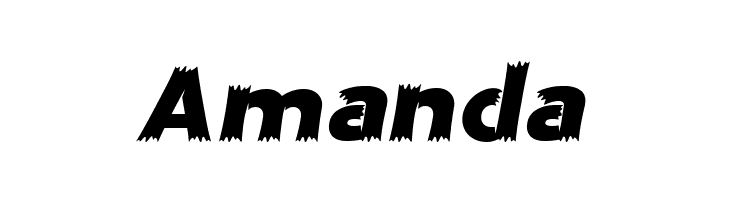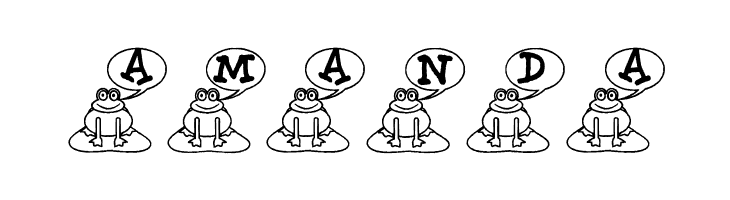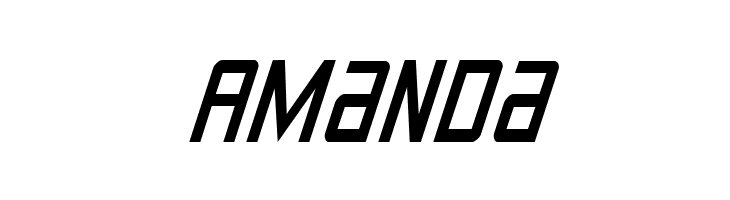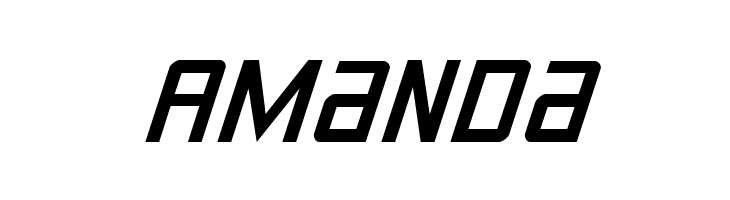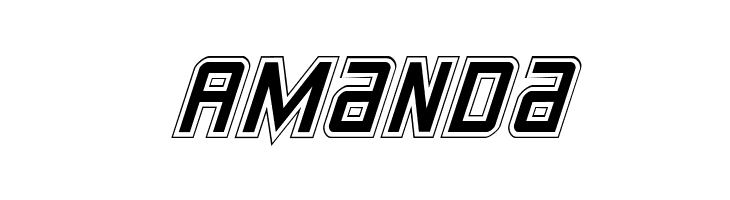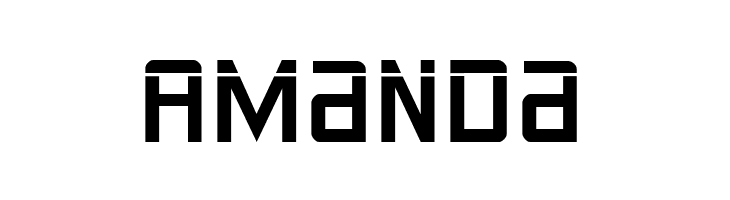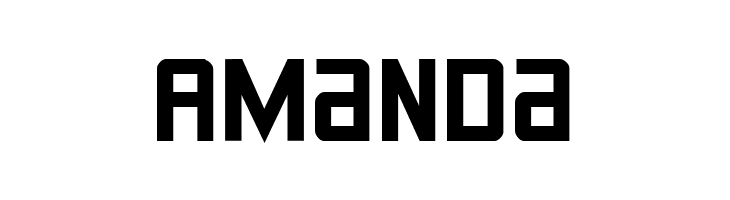
• Crixus 3D
A bold, 3D geometric font with a modern and futuristic style.
• Crixus 3D Italic
A bold, 3D italic font with a modern, geometric design.
• Crixus Academy
Bold, geometric font with a three-dimensional outline effect.
• Crixus Academy Italic
A bold, italicized font with a modern, outlined style.
• Crixus Bold
A bold, geometric font with a modern and structured design.
• Crixus Bold Italic
A bold, italicized font with geometric and angular characteristics.
• Crixus Condensed
A geometric, modern, and condensed font with a clean and bold appearance.
• Crixus Condensed Italic
A modern, angular, condensed italic font with a dynamic and streamlined appearance.
• Crixus Expanded
• Crixus Expanded Italic
A modern, expanded italic font with geometric and dynamic letterforms.
• Crixus Italic
A modern, italicized font with sleek, angular characters and consistent stroke weight.
• Crixus Laser
A futuristic, geometric font with bold, angular letterforms.
• Crixus Laser Italic
A bold, italic, and angular font with a futuristic and dynamic style.
• Crixus Leftalic
A bold, angular font with a modern, slanted design.
• Cro-Magnum
A bold, rugged font with angular, hand-chiseled characters.
• Cro-Magnum Condensed
A bold, rugged, and condensed font with a primitive, hand-crafted style.
• Cro-Magnum Condensed Shadow
Bold, condensed font with a shadow effect and playful, geometric style.
• Cro-Magnum Jagged
A bold, jagged font with a rugged, primal appearance.
• Cro-Magnum Shadow
A bold, playful font with a 3D shadow effect, perfect for dynamic and eye-catching designs.
• Croakers JL
A playful font with letters in speech bubbles held by cartoon frogs.
• CroCroTraUmAx
• Croissant